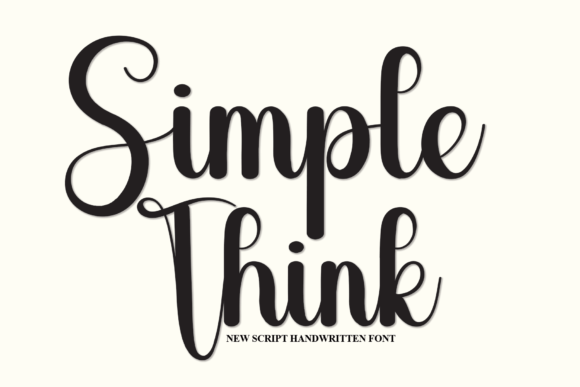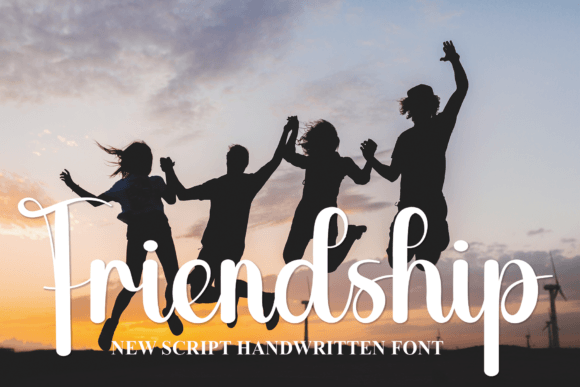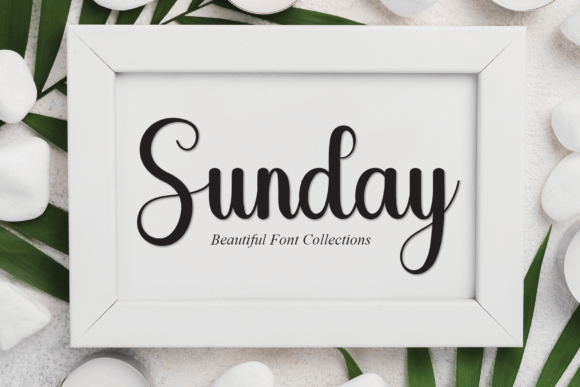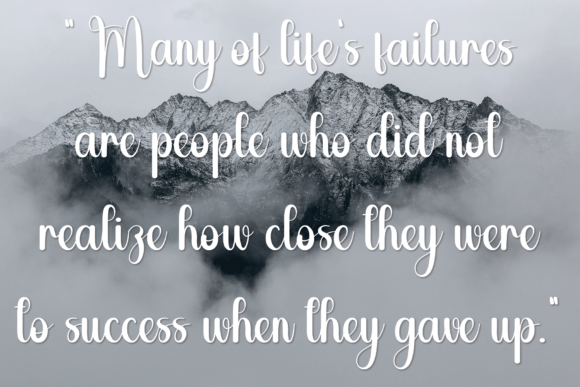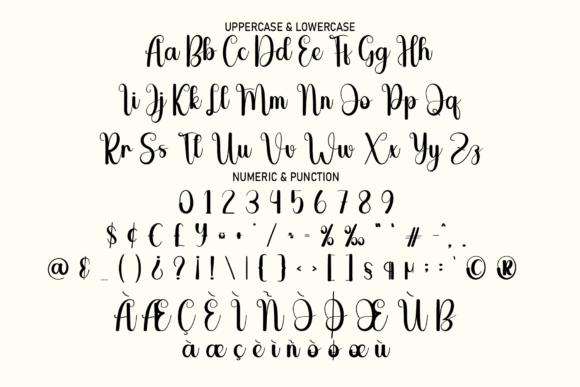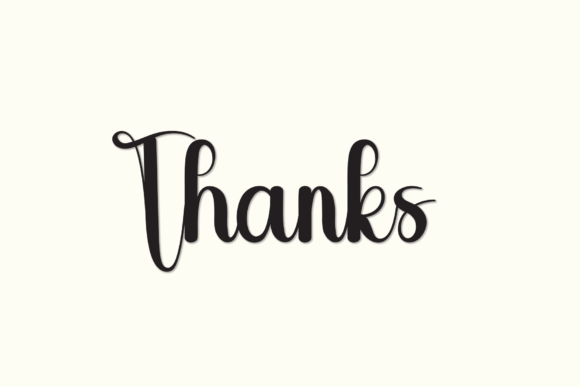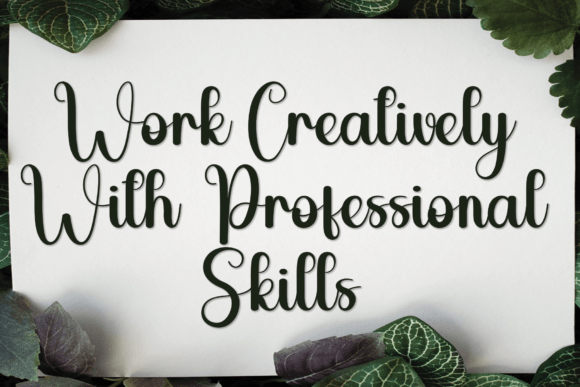
Simple Think
About Simple Think
Simple Think is a bold and exquisite handwritten font. Stylish, graceful, and flowing, this font will definitely elevate the look of any of your beautiful creations while keeping them grounded and natural.